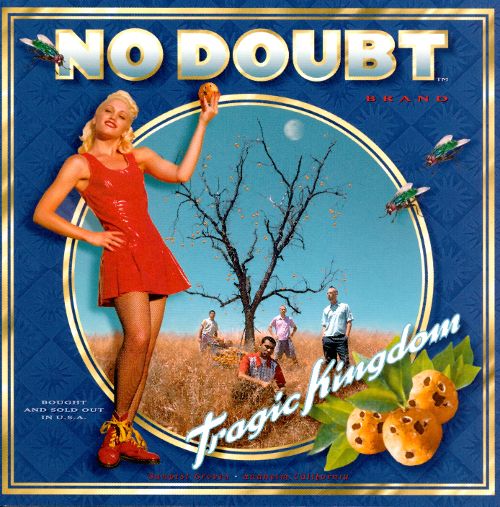
Do you guys know what all the typefaces are on the cover of the Tragic Kingdom cover by NO DOUBT?
NO DOUBT is Futura Extra Bold with bevels applied in Photoshop. I couldn’t track down “Tragic Kingdom.”